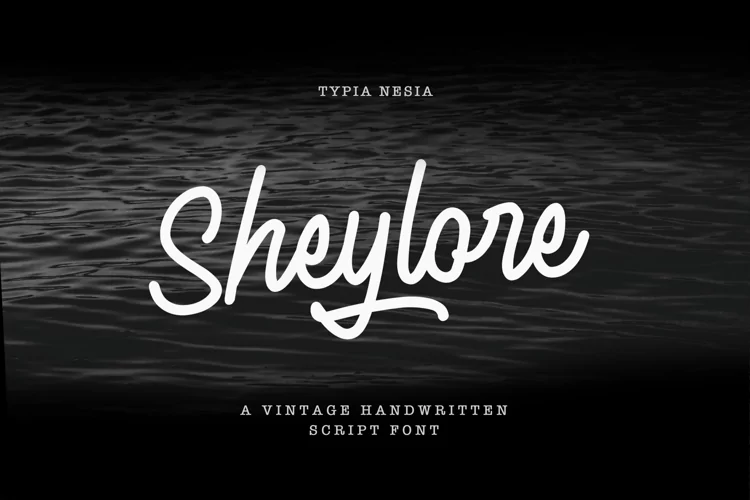
Sheylore - Vintage Romantic Handwritten Font - Monoline Signature Script - Wedding Font
The unique flow and easy handwritten style makes it perfect for wedding design, social media, feminine branding, greting cards, modern invitation design, branding, stationery design, blog design, modern advertising design, wedding invitation, Art Quote, Home decor, Book/Cover Title, Invitation, special events, birthday, custom mug, pillow, t-shirts, and any signature font needs and more or simply use it in your next design project.